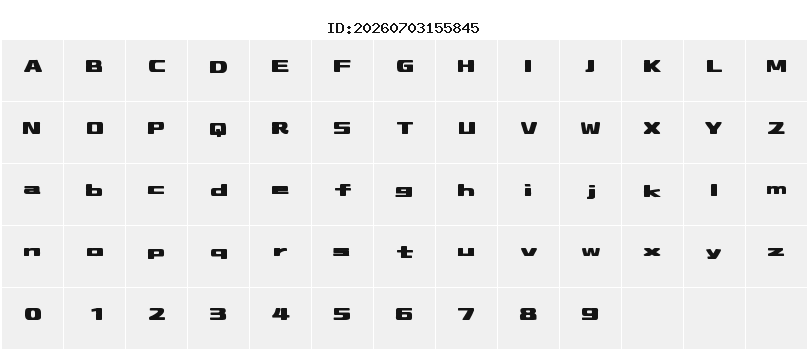
• Font Name: 388-上首方糕体
• Full Font Name: 388-上首方糕体
• Manufacturer: 上首造字
About 388-上首方糕体.ttf
388-上首方糕体.ttf is a modern, elegant sans-serif font designed for ultimate readability and visual harmony. Perfect for branding, headlines, web design, and print materials.